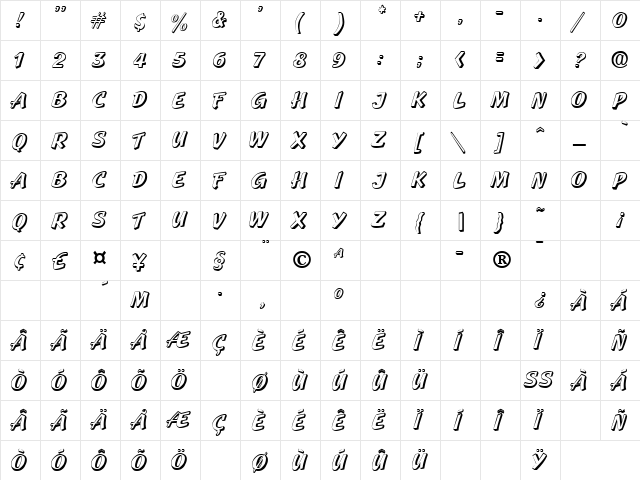
Standout Regular
Design Context for Standout Typeface
Standout is a composed and adaptable typeface that performs quietly and consistently across a wide range of design contexts.